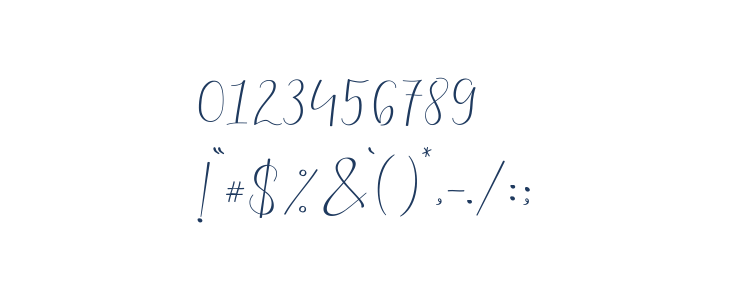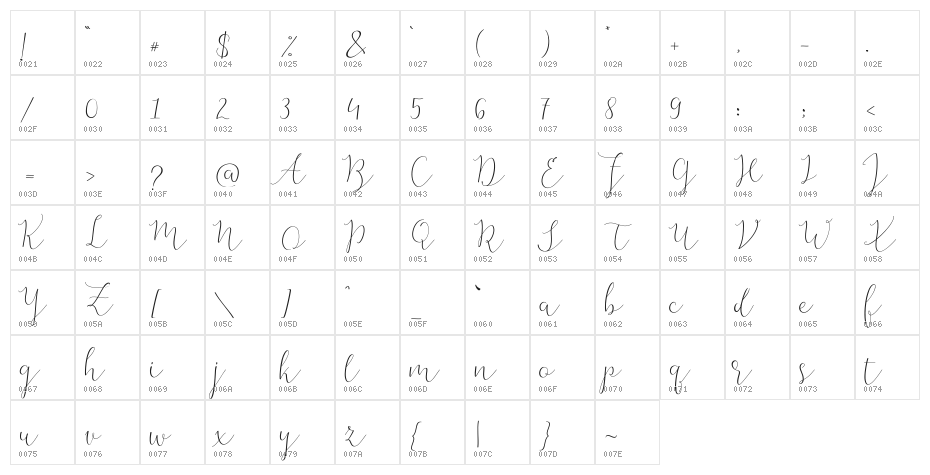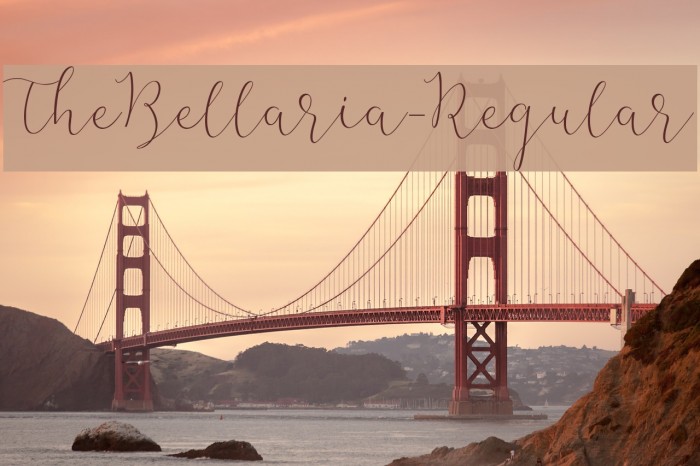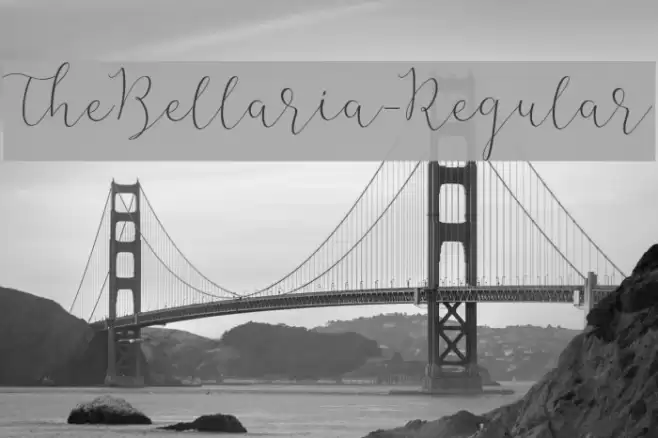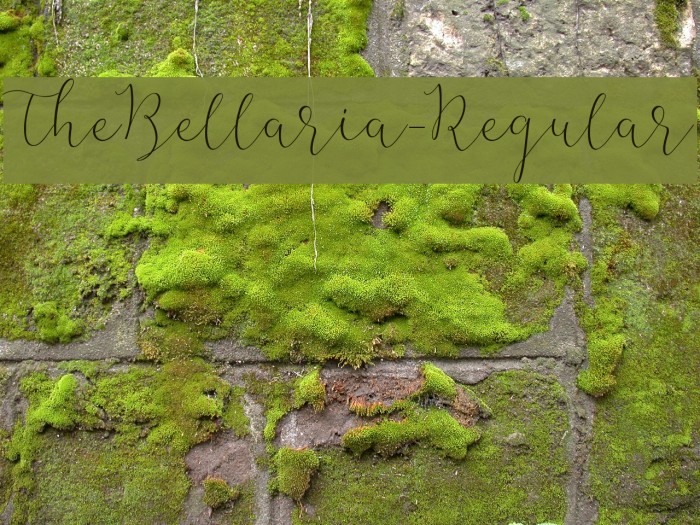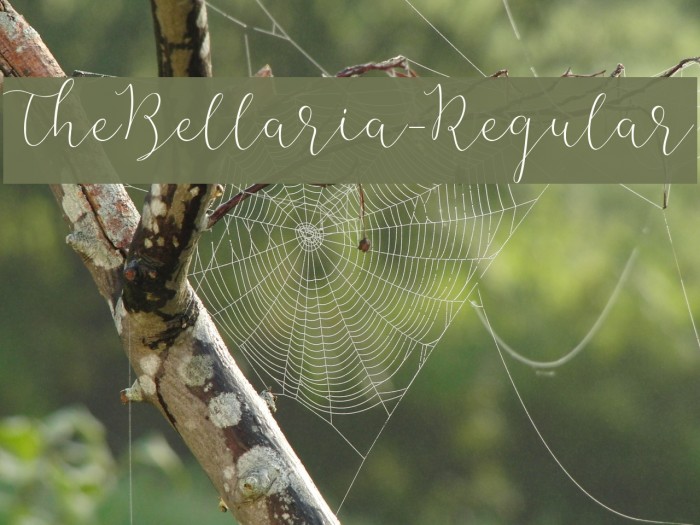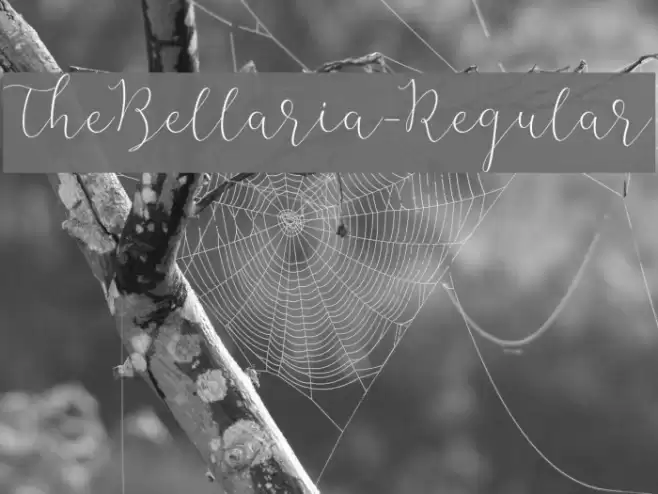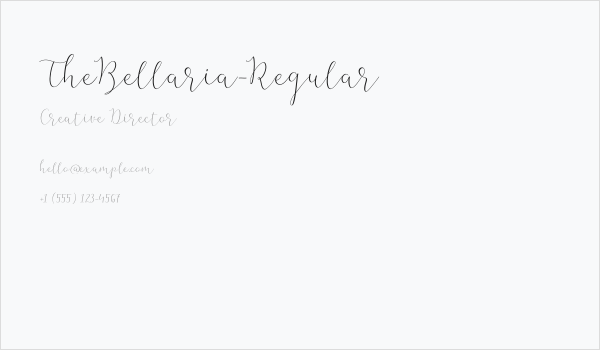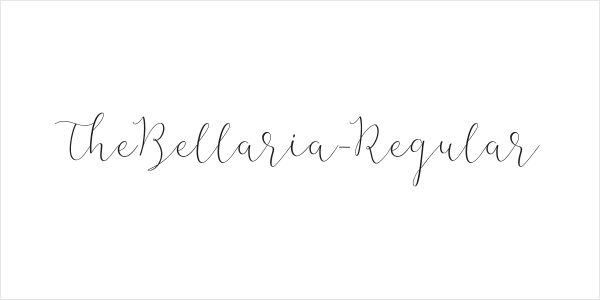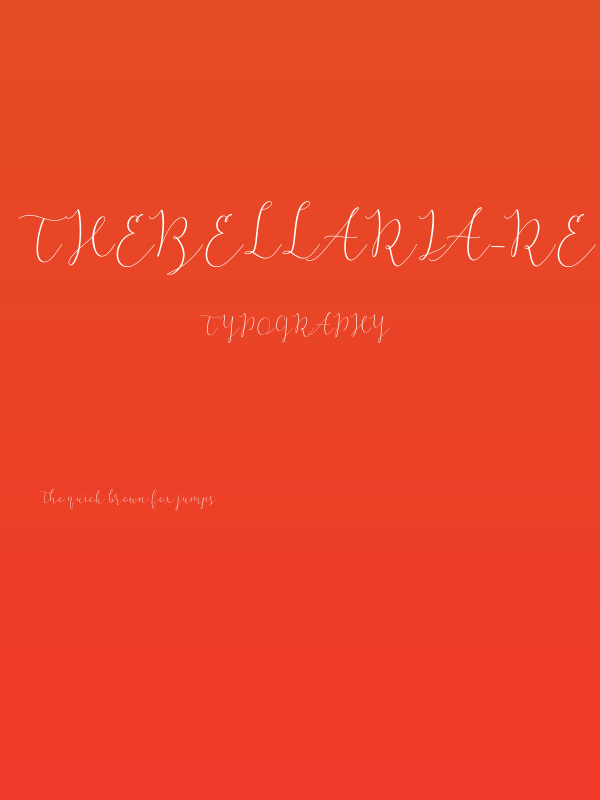
TheBellaria-Regular Font
TheBellaria-Regular Description
This font features an elegant and flowing script style, characterized by its graceful curves and delicate strokes. The uppercase letters are distinct with a slight slant, adding a touch of sophistication. Lowercase letters maintain a consistent flow, enhancing readability while retaining a stylish appearance. The numerals are clear and complement the overall script design. Special characters are thoughtfully integrated, maintaining the font's cohesive look. This font is perfect for projects that require a touch of elegance and personality.
| Use Case | Headlines, Invitations, Branding |
| Proposed Projects | Ideal for wedding invitations, greeting cards, branding, and elegant packaging designs. |